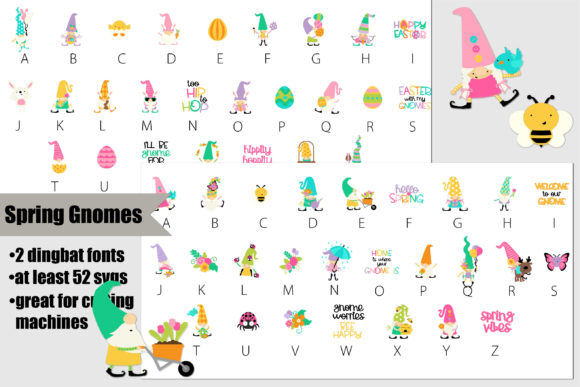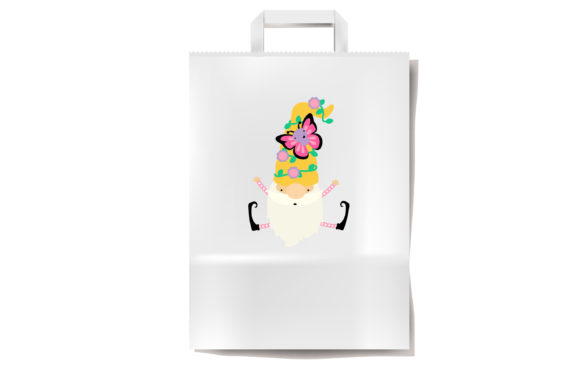
About Spring and Easter Gnomes Font
Introducing the Spring Gnomes Dingbat Bundle, a delightful collection of full-color dingbat fonts featuring decorative spring and Easter gnomes. This bundle includes two different fonts, each showcasing colorful and whimsical gnome illustrations.
With the Spring Gnomes Dingbat Bundle, you can add a touch of springtime charm to your designs. These dingbat fonts are designed to be used as decorative elements, allowing you to easily insert cute and playful gnome illustrations into your projects. Whether you’re creating greeting cards, invitations, scrapbook pages, or any other spring-themed design, these dingbats will add a festive and cheerful vibe.
Embrace the spirit of spring and Easter with the Spring Gnomes Dingbat Bundle. Let these adorable gnomes inspire your creativity and add a playful and whimsical element to your designs. Explore the variety of decorative elements included in the bundle and have fun incorporating them into your projects.
Enjoy the charm and versatility of the Spring Gnomes Dingbat Bundle and watch your designs come to life with these delightful gnome illustrations!